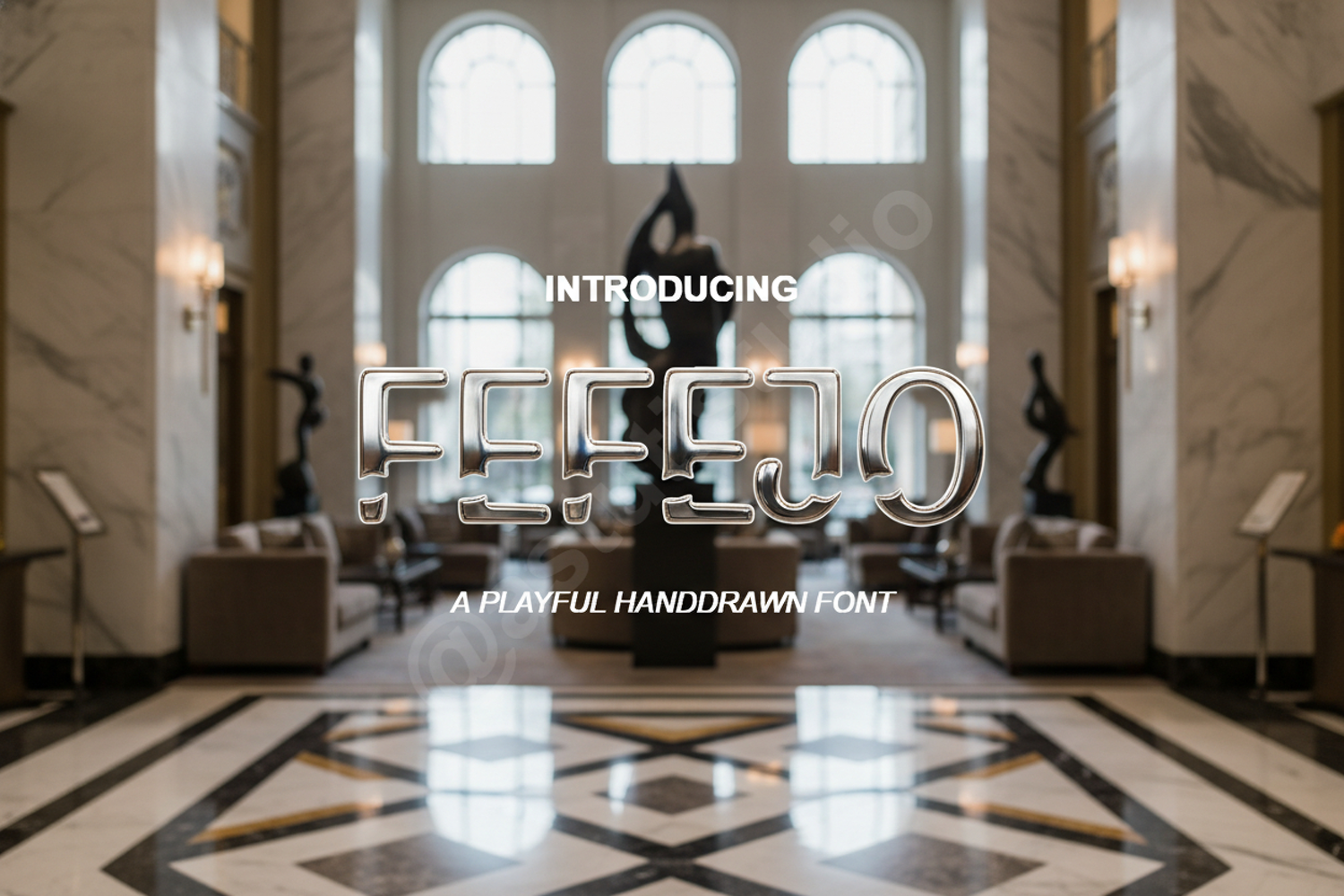
Fefejo - Elegant Modern Serif Typeface
Fefejo
Fefejo is a premium serif typeface that seamlessly blends classic sophistication with modern versatility. Crafted with meticulous attention to detail, this font exudes a sense of luxury and timeless style, making it an essential addition to any designer's toolkit. Whether you are working on a high-end brand identity or a delicate editorial layout, Fefejo provides the perfect balance of character and legibility.
- Standard Ligatures and Alternates
- Comprehensive Multilingual Support